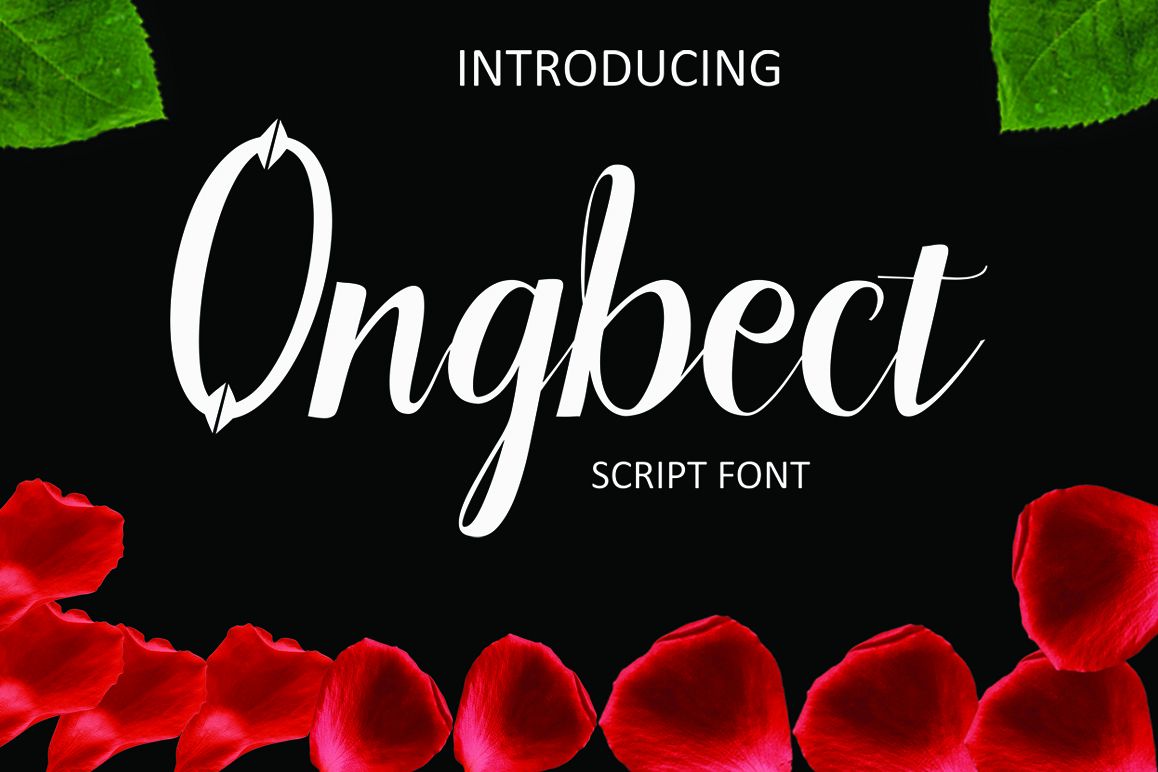
Ongbect
Ongbect A hand brush to write a script, first drawn on paper and then remastered on a computer to provide free brush smooth flowing script, which looks perfectly on an image or as a classy logo.
Ongbect - A comic script font super clean, simple and elegant work of producing stand-alone pieces sophisticated typography or in combination with a script font.